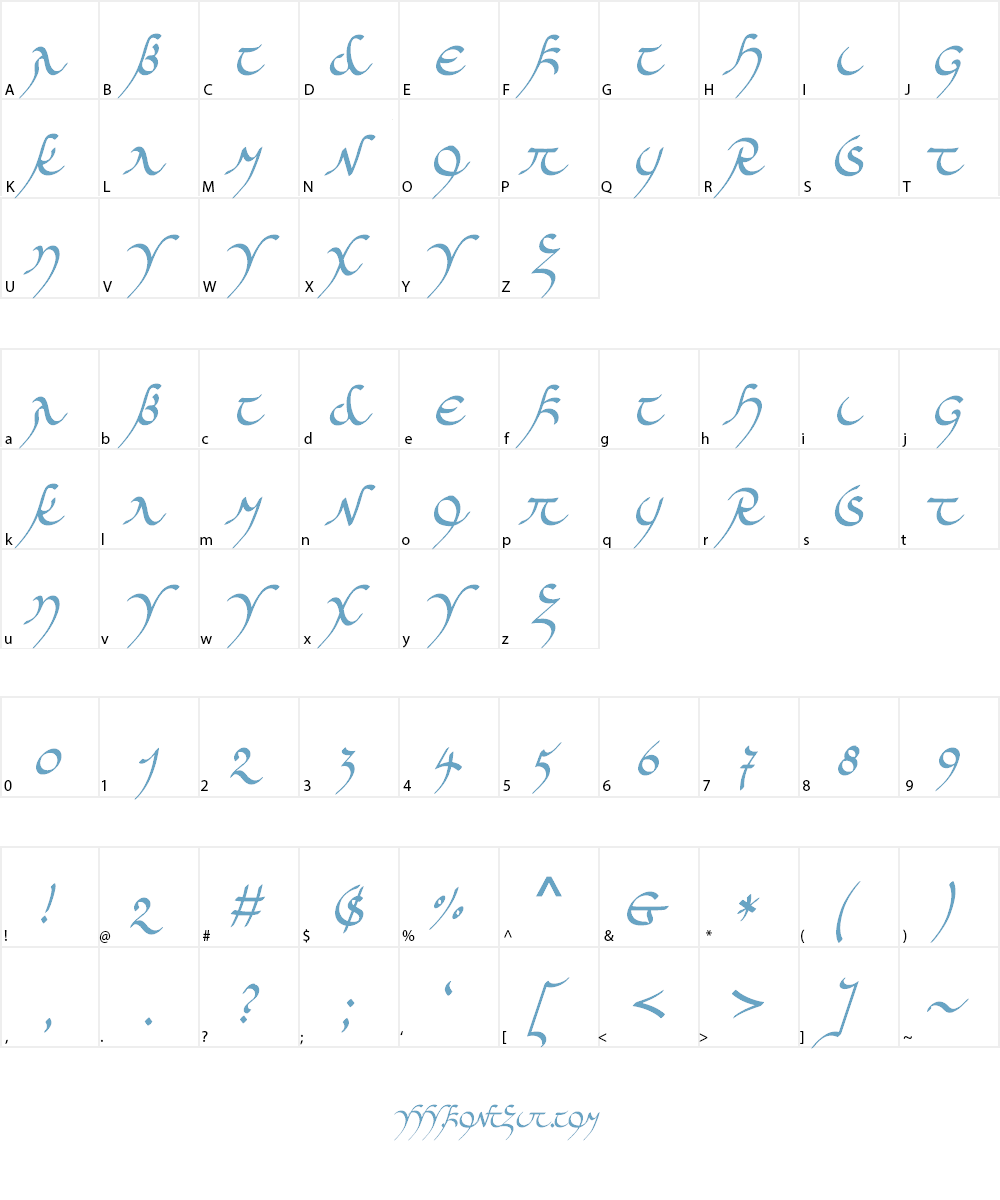
The Midjungards font (goth. "world") is a fictitous gothic hand script invented by me, stilistically based on the Elvish script Tengwar from J.R.R Tolkien's epic Lord of the Rings (as the name of Tolkien's fantasy continent, Middle Earth, is obviously based on the germanic word "Midgard").